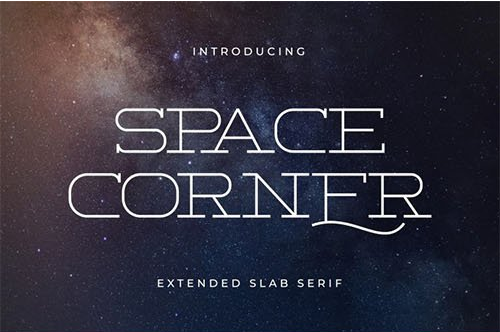
Modern and beautiful font collection vol 3
This condensed display font made by the Indieground Team is perfect for your heavy titles and headlines. It gives an iconic style and boldness to the typography of your artworks, both retro and modern. It fits every graphic design or typography-related project. A font with a minimal atmosphere that will give a cool style and weight to all your artistic compositions. The font demos are free for personal use and if you need you can also buy the regular commercial version includes the 3 different condensed font-weights with their full characters set shown in the preview.